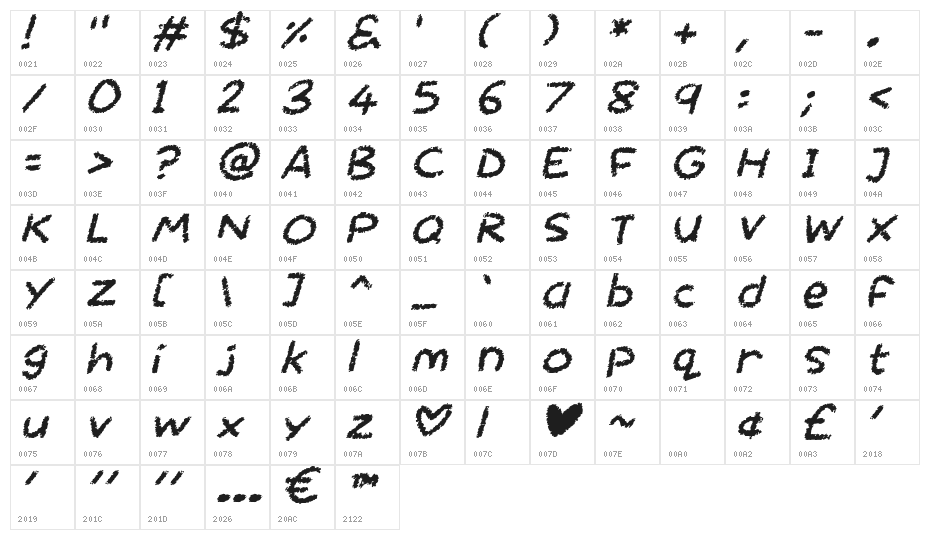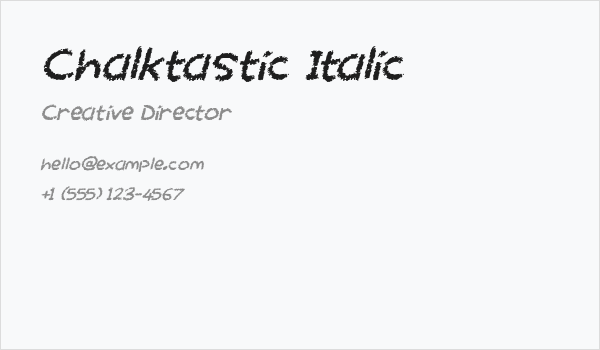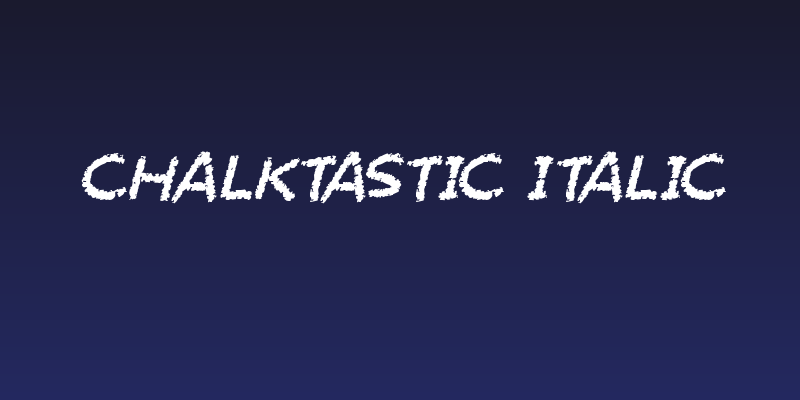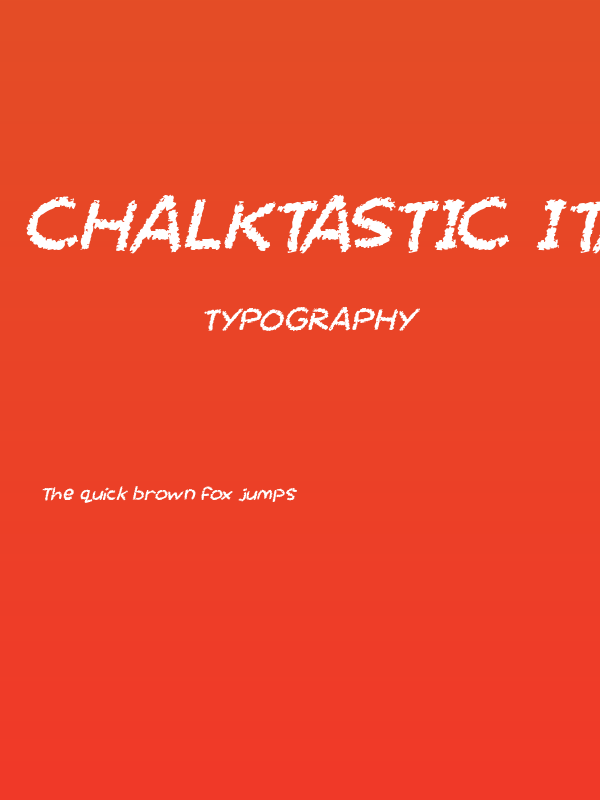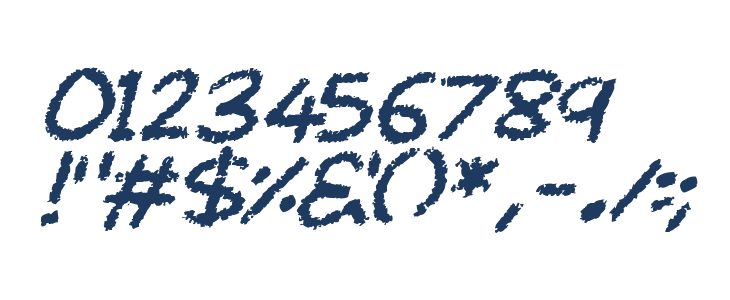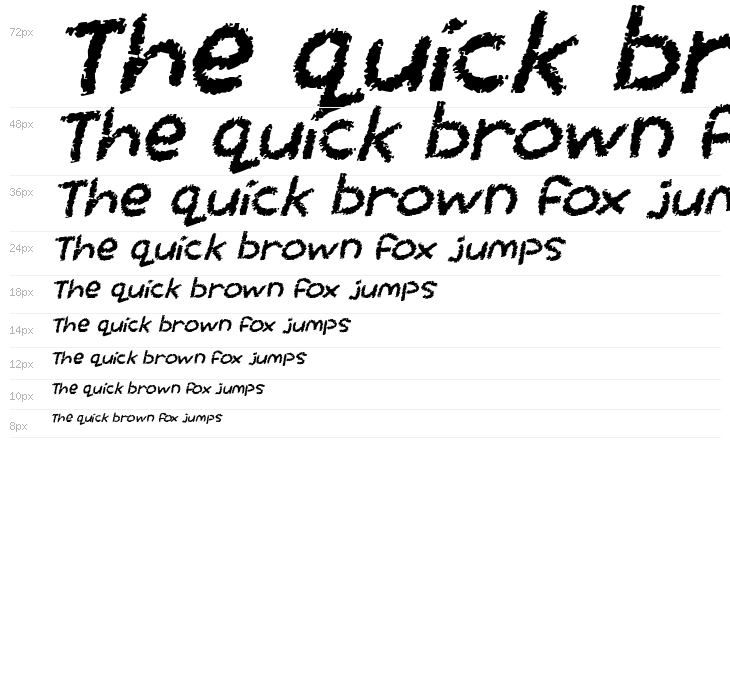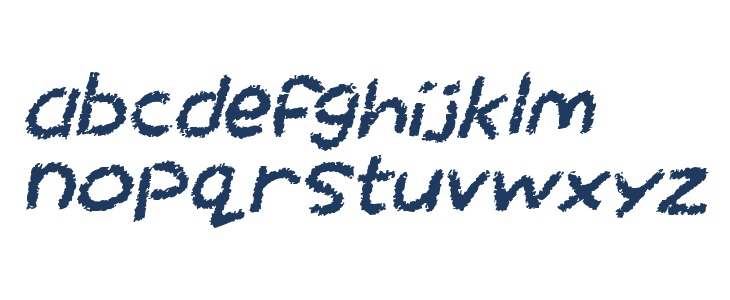
Chalktastic Italic Font
Chalktastic Italic Description
This font features a playful and textured style, reminiscent of chalk writing on a blackboard. The letters are slightly slanted, adding a dynamic and informal feel. Each character is crafted with a rough, hand-drawn appearance, giving it a unique and artistic touch. The font maintains a consistent texture throughout, with a medium weight that ensures readability while preserving its decorative nature. The spacing between characters is normal, allowing for clear legibility. This font is ideal for projects that aim to convey creativity and a casual, friendly atmosphere.
| Proposed Projects | Ideal for educational materials, children's book covers, cafe menus, and creative posters. |